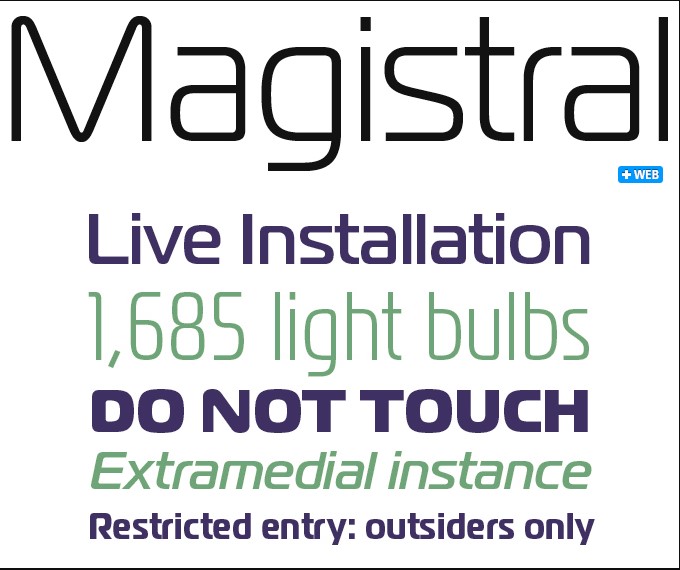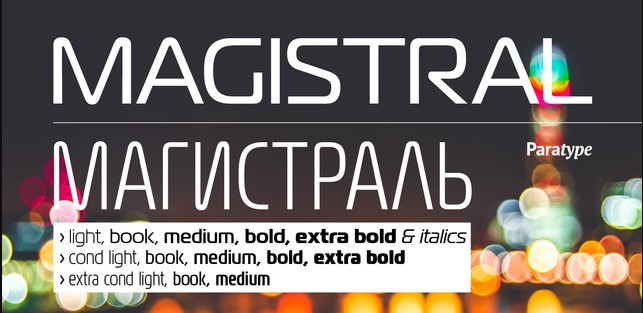
Magistral Font
Magistral Font is known for its bold and italic function that is similar to nordic font. Additionally, This typeface is utilized in Adobe. This is additionally known as upload font. Its sort is paying homage to gothic timber sorts but more geometric.
This makes for charmingly taken into consideration certainly one of type of characters that align perfectly, despite the fact that used at superb sizes. But, that could be a clean looking and certainly strong font if you want to give you the results you need. It is been included as a font desire and is one of the unusual fonts for standard format. The Magistral Font Free Which makes it closing for designing logos for startups, net pages, and cutting-edge producers.
The font is offered in 2 variations: not unusual and outline. A sans-serif font this is much like gilroy font from device-kind foundry essentially based at the concept of its letterforms feature circles which might be almost but no longer as an opportunity final. Download It moreover aspects 4four hundred glyphs and hundred ninety exchange characters. The font includes all characters in each uppercase and lowercase letters.
It’s miles a modern-day¬†monopoly font with a futuristic format. This font is perfect for editing social posts website online headers.